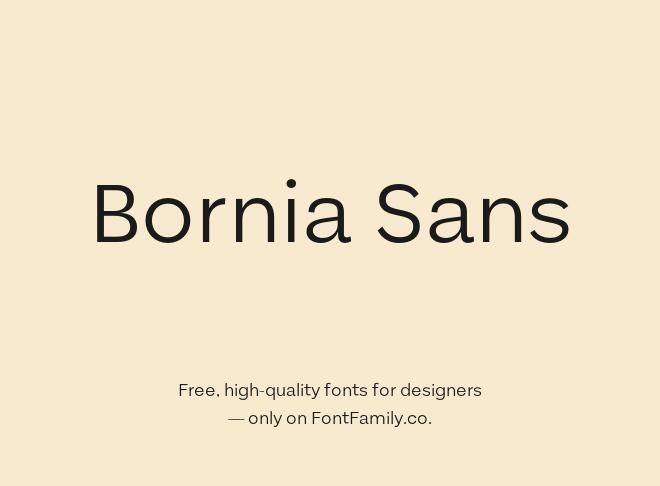
Bornia Sans Font
Bornia Sans Font is a modern, geometric, and minimalistic typeface that combines simplicity with sophistication. Created by the Bornia Foundry, it is characterized by its clean lines and open forms. Its balanced proportions and optimal kerning make it a versatile font that is easy to read at any size. Ideal for both print and digital designs, it shines in branding, UI/UX design, web design, and any project that calls for clarity and modernity. Compared to similar fonts, Bornia Sans Font stands out with its unique character design and attention to detail. It is free for personal use, making it a great choice for designers looking to add a touch of modern elegance to their work. Its sleek design, combined with its usability, makes Bornia Sans Font a must-have in every designer's toolkit.